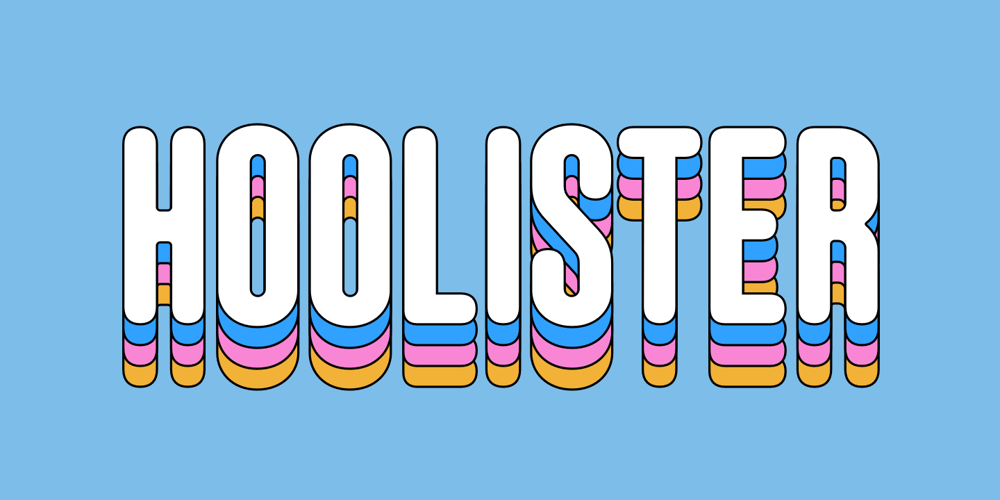
Hoolister
Hoolister font
Hoolister Font Family was designed by Changki Han and published by Ckhans Fonts. Hoolister contains 59 styles and family package options. Hoolister is a modern sans serif with a geometric touch that support for 87 languages. It comes in 9 weights, 58 uprights and its matching obliques, outlines, glowe, shaded, so you can use them to your heart’s content, in each of which there are more than 512+ glyphs. Hoolister comprises 58 fonts, consisting of three distinct optical sizes: Display. Each one has been carefully tailored to the demands of its size. The larger Display versions are drawn to show off the subtlety of Hoolister and spaced with headlines in mind, while the Text sizes focus on legibility, using robust strokes and comfortably loose spaces. In the typeface, each weight includes extended language support, icons, fractions, tabular figures, arrows, ligatures and more. Perfectly suited for graphic design and any display use. It could easily work for branding, web, signage, corporate as well as for editorial design. documents and folders, mobile interface.Support for 87 languages.Afrikaans Albanian Asu Basque Bemba Bena Breton Catalan Chiga Colognian Cornish Croatian Czech Danish Dutch English Estonian Faroese Filipino Finnish French Friulian Galician Ganda German Gusii Hungarian Inari Sami Indonesian Irish Italian Jola-Fonyi Kabuverdianu Kalenjin Kinyarwanda Latvian Lithuanian Lower Sorbian Luo Luxembourgish Luyia Machame Makhuwa-Meetto Makonde Malagasy Maltese Manx Morisyen Northern Sami North Ndebele Norwegian Bokmål Norwegian Nynorsk Nyankole Oromo Polish Portuguese Quechua Romanian Romansh Rombo Rundi Rwa Samburu Sango Sangu Scottish Gaelic Sena Serbian Shambala Shona Slovak Soga Somali Spanish Swahili Swedish Swiss German Taita Teso Turkish Upper Sorbian Uzbek (Latin) Volapük Vunjo Welsh Western Frisian Zulu